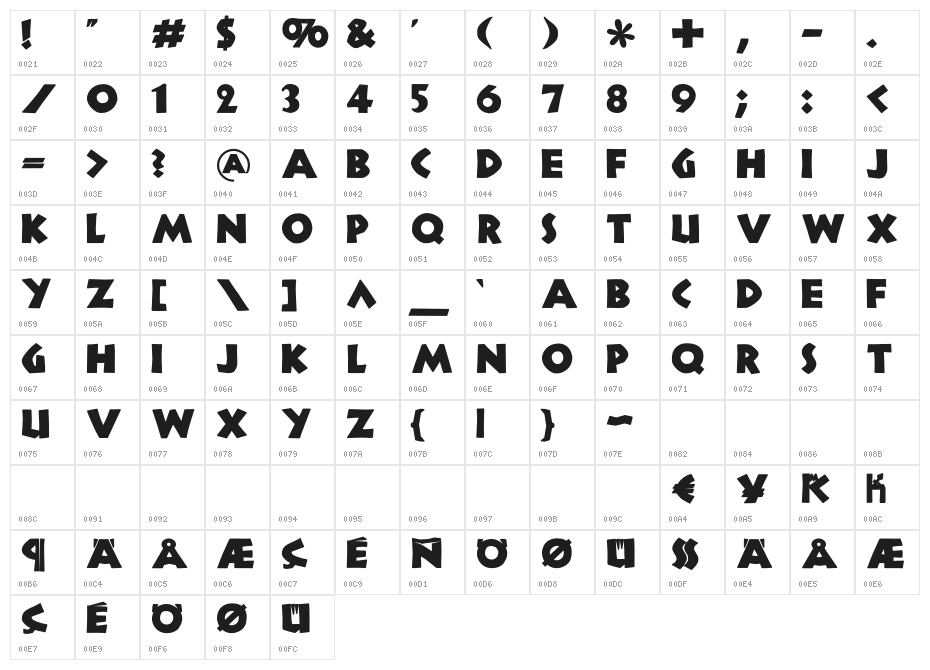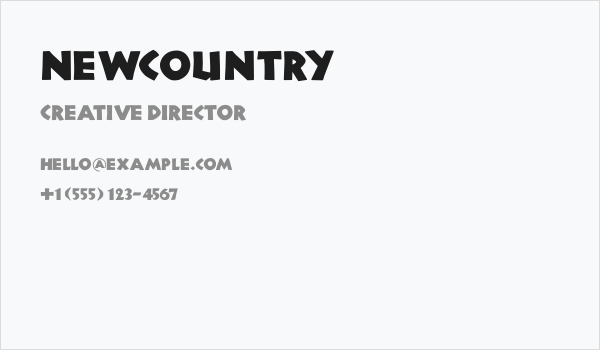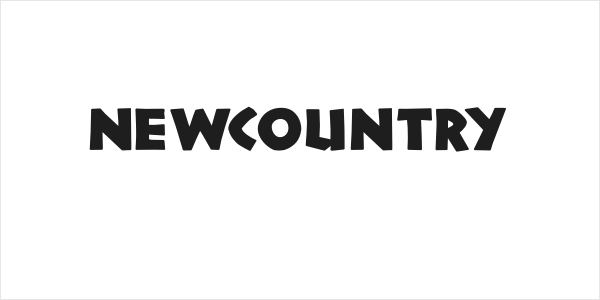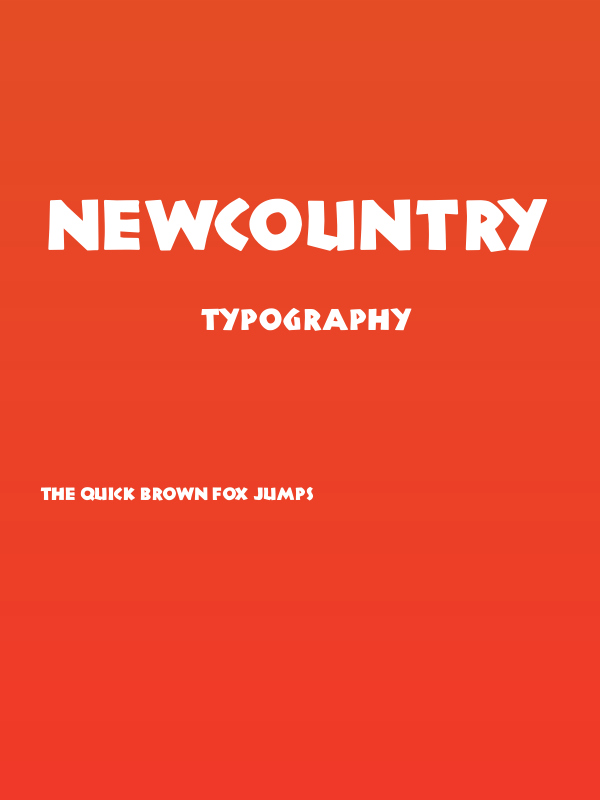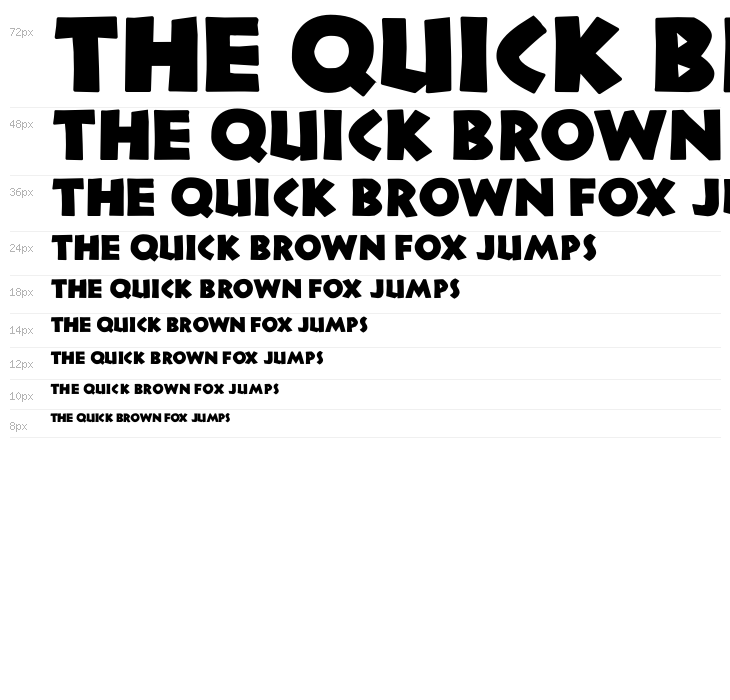
NewCountry Font
NewCountry Description
This font features a bold and dynamic style with sharp, angular edges and a strong presence. The characters are designed with a slightly condensed width, giving them a compact and powerful look. The uppercase and lowercase letters maintain a consistent height, contributing to a uniform appearance. The numbers are equally bold, ensuring they stand out in any context. Special characters are crafted with the same attention to detail, providing a cohesive look across all glyphs. The font's high contrast in stroke thickness adds to its striking visual impact, making it suitable for attention-grabbing designs.
| Proposed Projects | Ideal for posters, headlines, branding, and any project requiring a strong visual impact. |